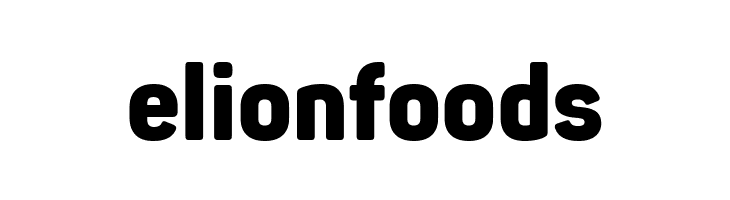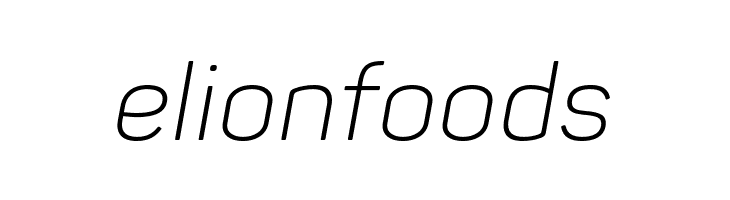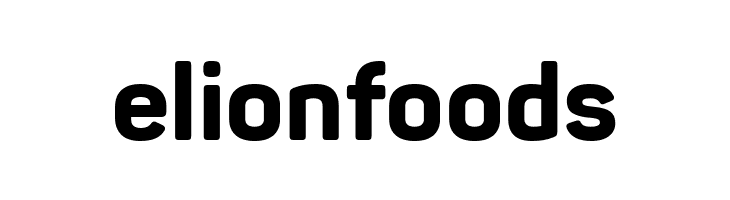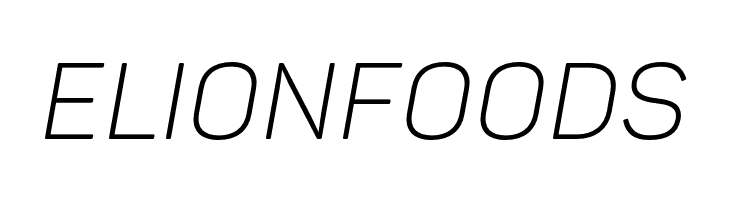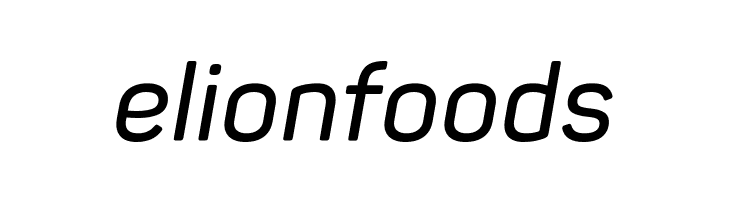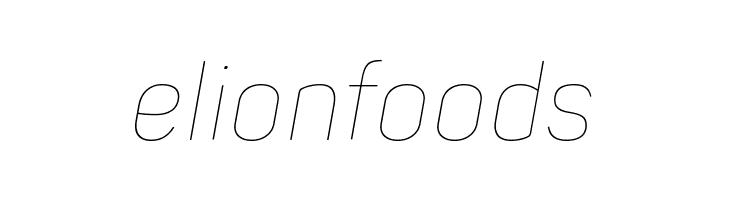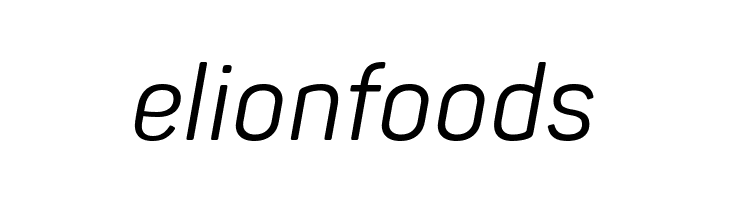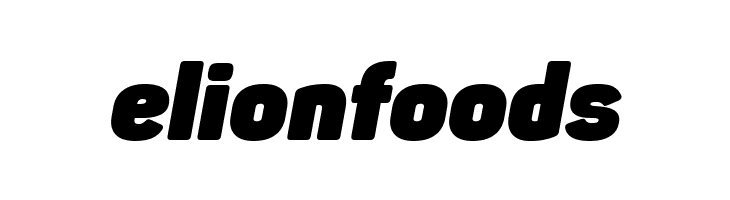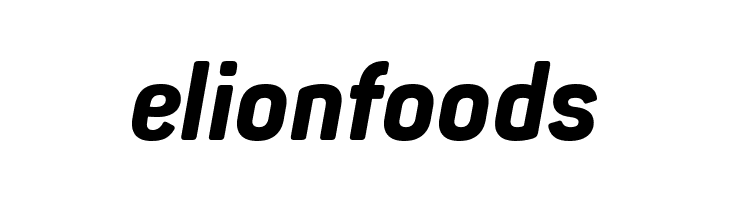
A bold, modern font with narrow width and consistent stroke weight, perfect for impactful headlines.
A modern, narrow sans-serif font with a semi-bold weight.
A sleek, modern sans-serif font with a light, italic style.
A bold, modern sans-serif font with geometric shapes and clean lines.
A sleek, modern, light italic font with balanced spacing and smooth strokes.
A modern, semi-bold italic sans-serif font with a sleek design.
A sleek, narrow, and italicized font with a modern and elegant style.
A modern, narrow, and italic font with a sleek design.
A bold, italicized font with a modern and assertive style.
A modern, narrow, extra bold italic font with a sleek and dynamic style.